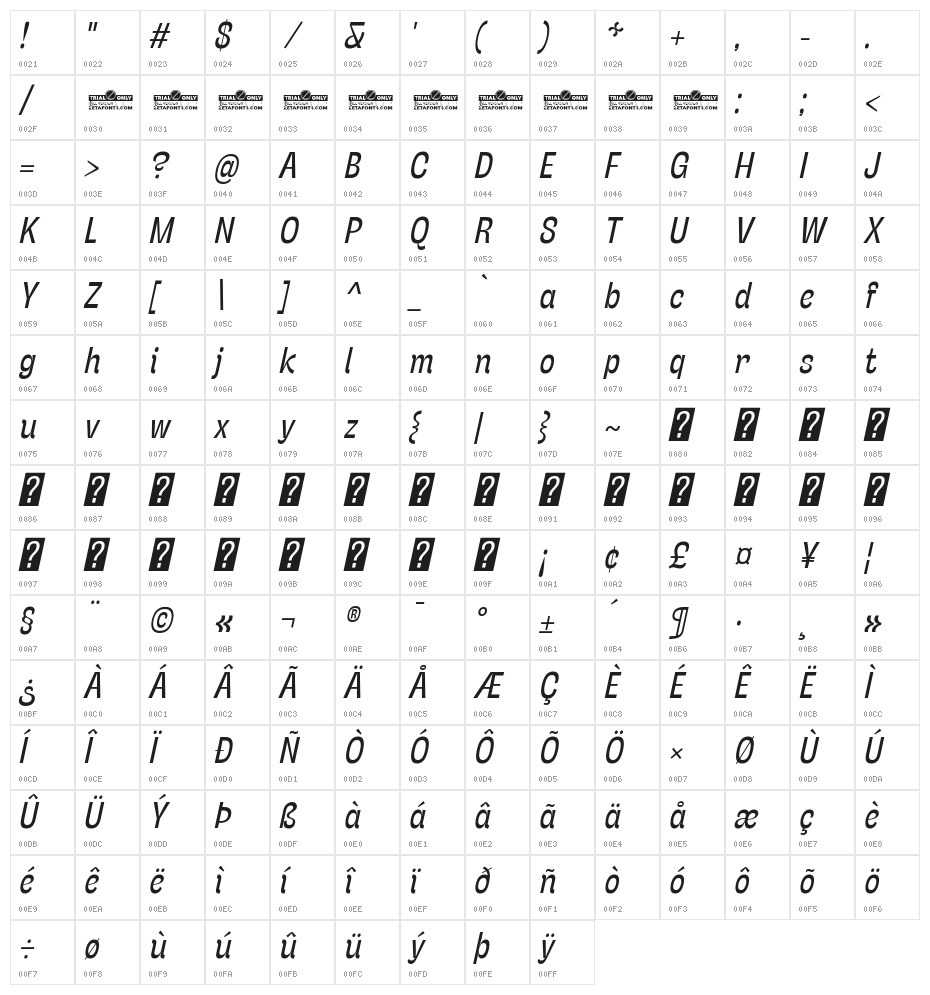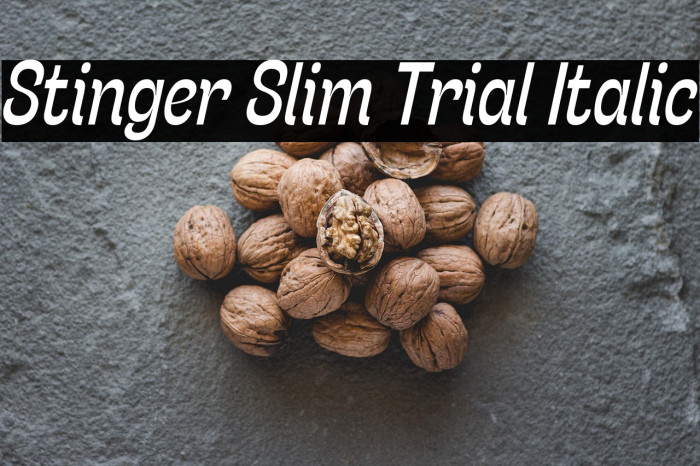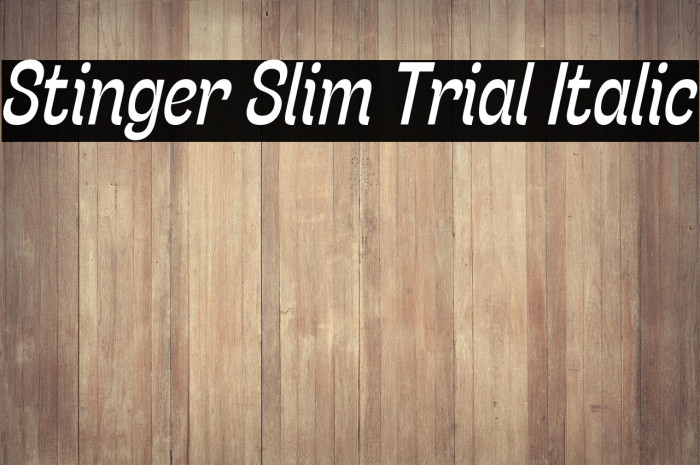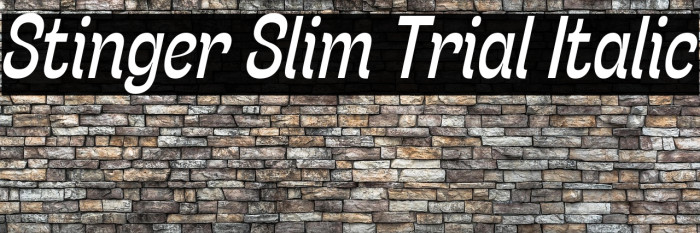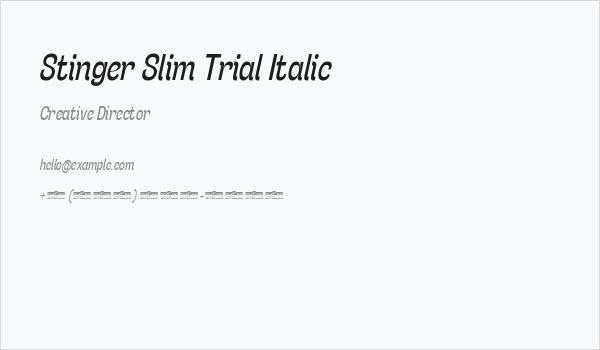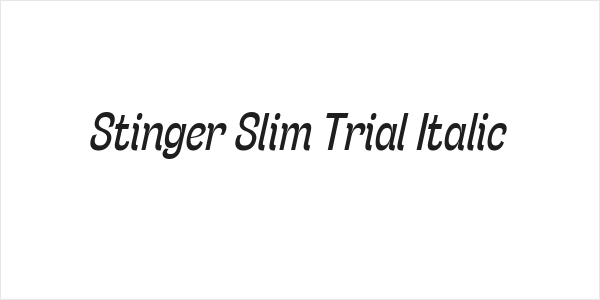
Stinger Slim Trial Italic Font
Stinger Slim Trial Italic Description
This font features a sleek and modern design with a distinct italic slant, giving it a dynamic and forward-moving appearance. The characters are slim and elongated, contributing to a sense of elegance and sophistication. The uppercase and lowercase letters maintain a consistent style, with smooth curves and sharp angles that enhance readability. The numerals and special characters are designed to match the overall aesthetic, ensuring a cohesive look across different uses. The font's clean lines and contemporary feel make it suitable for a variety of applications.
| Proposed Projects | Ideal for fashion magazines, modern branding, and dynamic web design. |